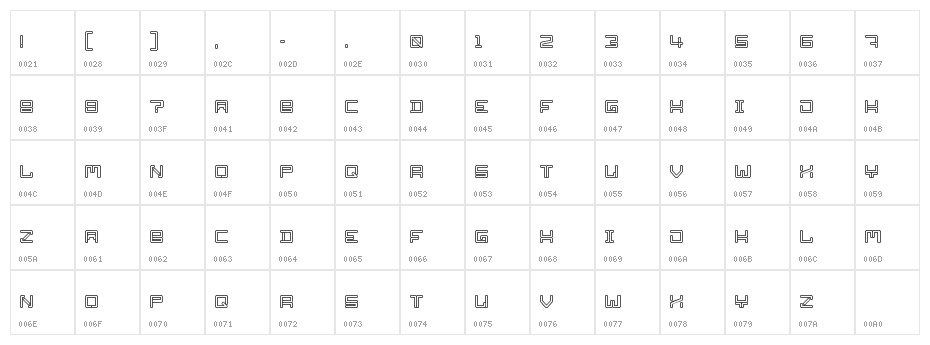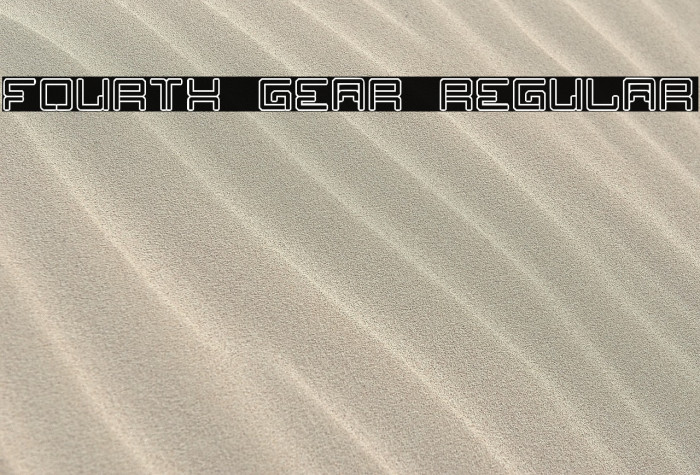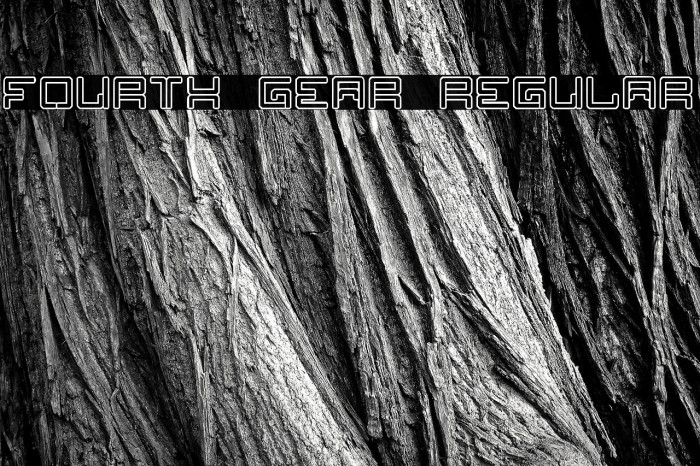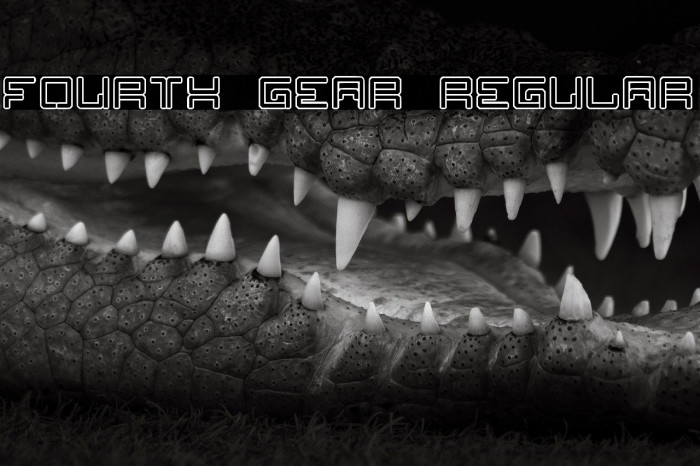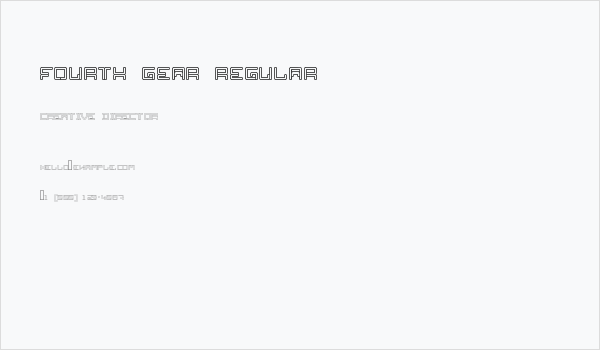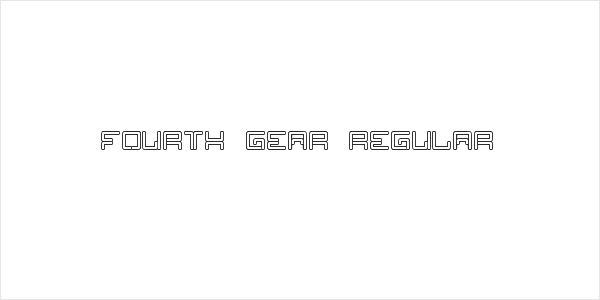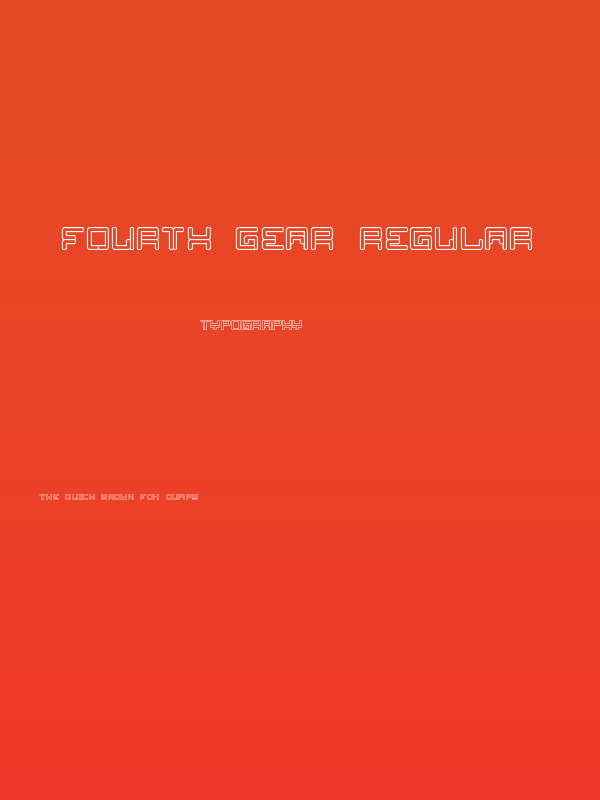
Fourth Gear Regular Font
Fourth Gear Regular Description
This font features a futuristic and geometric design with a hollow, outlined structure. Each character is crafted with precision, showcasing a uniform thickness throughout the strokes. The angular and mechanical appearance gives it a modern, tech-inspired feel. The uppercase and lowercase letters maintain a consistent style, with sharp edges and straight lines that form a cohesive and structured look. The numerals and special characters follow the same design principles, ensuring a seamless integration across all glyphs. This font is ideal for projects that require a bold and innovative aesthetic.
| Proposed Projects | Ideal for tech branding, video game titles, futuristic posters, and sci-fi themed designs. |